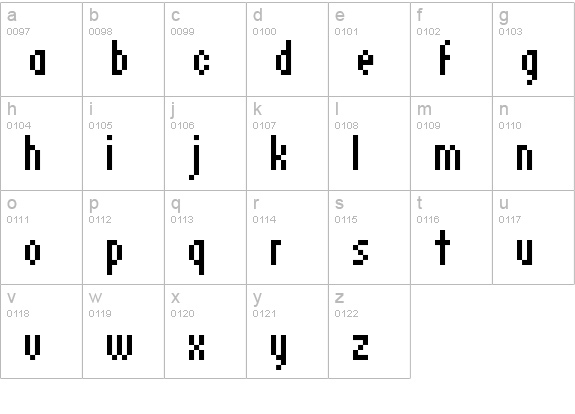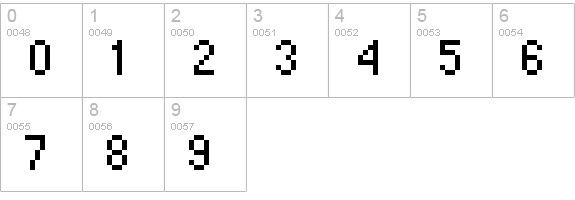
Standard 07_58 font is a versatile and modern typeface that is perfect for a wide range of design projects. With its clean lines and sleek appearance, this font is sure to make your text stand out. Whether you are designing a logo, creating a website, or designing a poster, Standard 07_58 font is the perfect choice. One of the best features of this font is that it is freely available to download at FontsMarket.com. This means that you can easily access and use this font for any personal or commercial project without any additional cost. This makes it a great option for designers on a budget or anyone looking to add a touch of style to their work without breaking the bank. The Standard 07_58 font is not only visually appealing but also highly legible, making it easy to read in any size or format. Its clean and modern design ensures that your text will be easily understood by readers, whether it is displayed on a small screen or a large billboard. In addition to its aesthetic appeal and versatility, the Standard 07_58 font also comes with a wide range of characters, including uppercase letters, lowercase letters, numbers, and special symbols. This allows you to create unique and eye-catching designs that are sure to make an impact. Overall, the Standard 07_58 font is a must-have for any designer or individual looking to add a touch of elegance and style to their projects. With its clean lines, modern design, and easy availability for free download at FontsMarket.com, this font is a valuable resource that should not be overlooked. So why wait? Download the Standard 07_58 font today and start creating stunning designs that will leave a lasting impression.